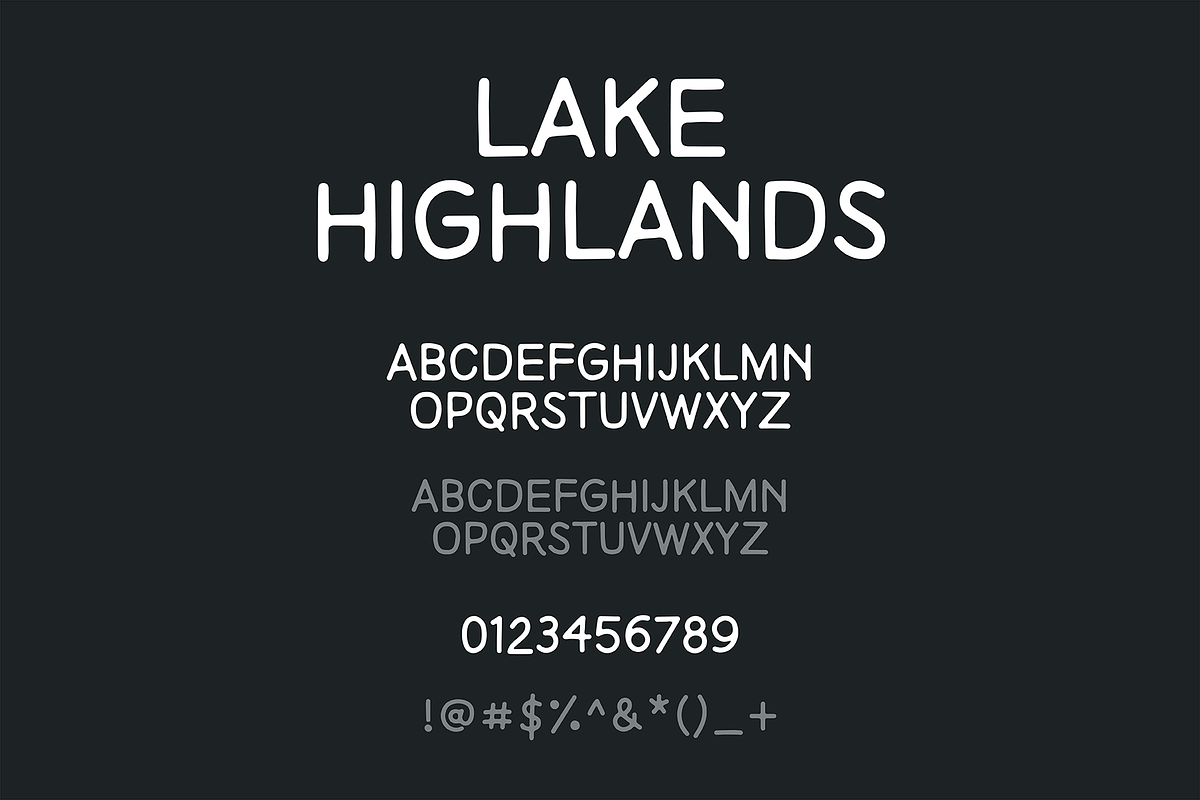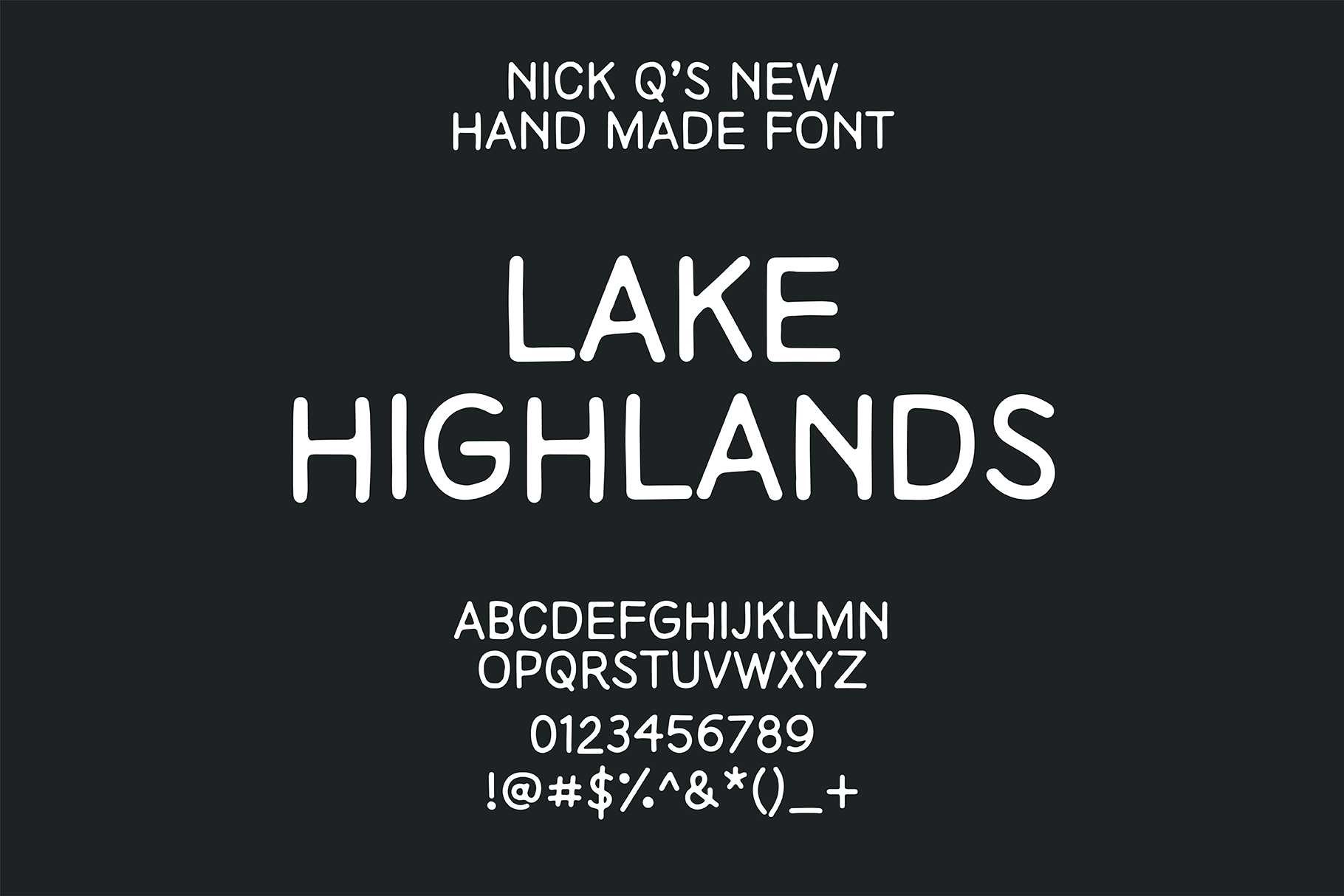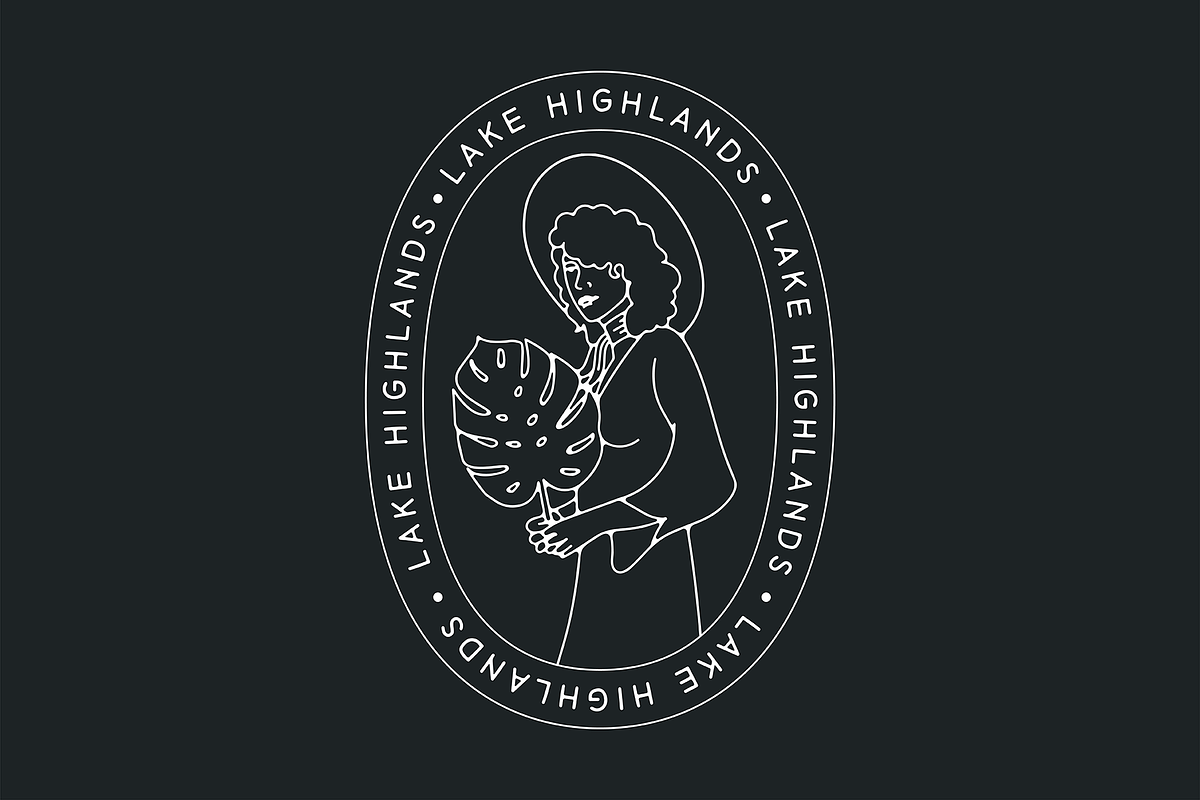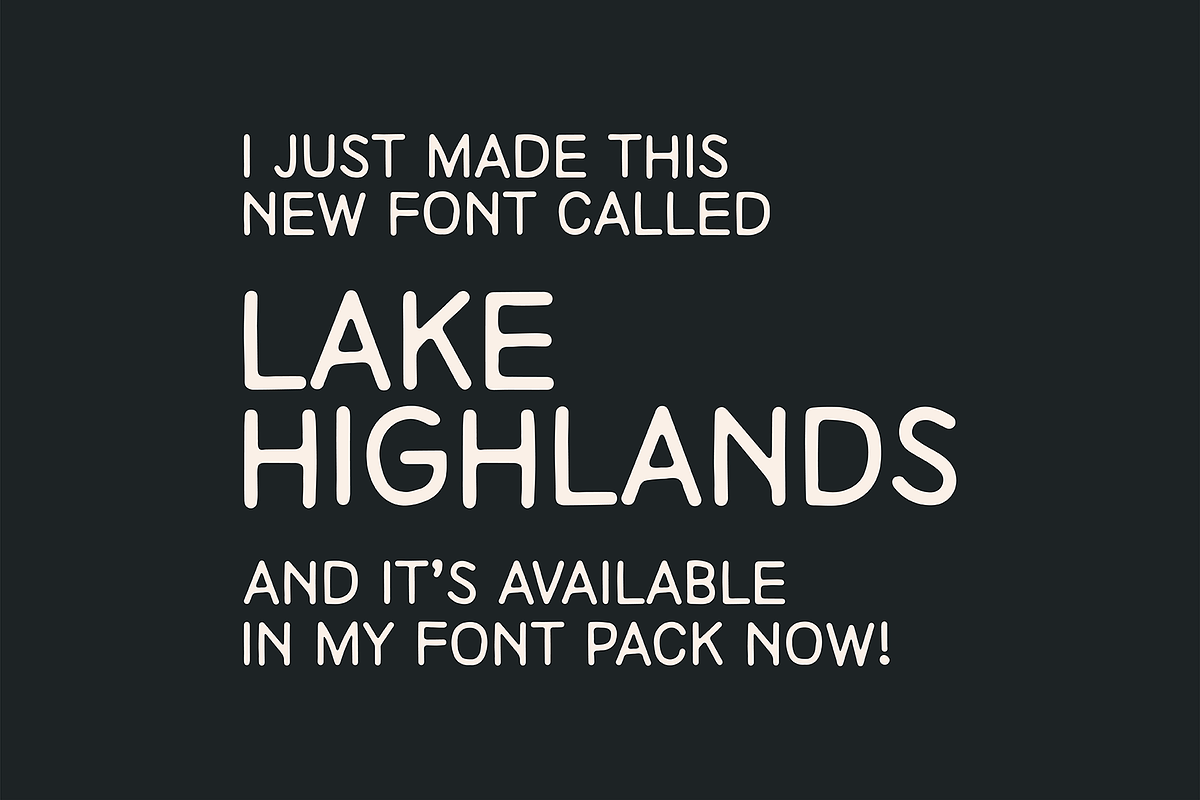
Lake Highlands Hand Drawn Font
Lake Highlands is my new font inspired by my handwriting but cleaned way up and is perfect for body text as well as headlines where you need to deliver a clear message.